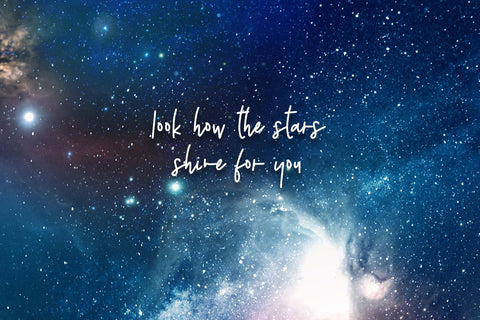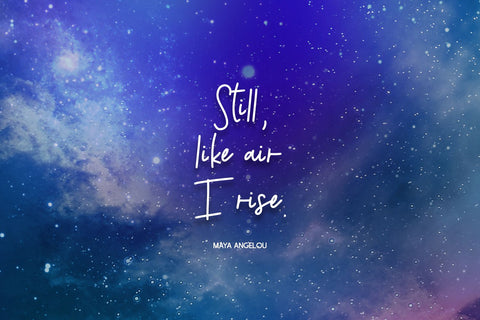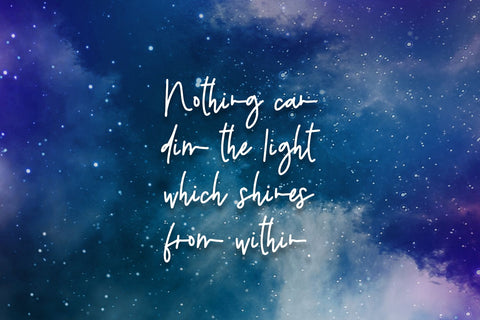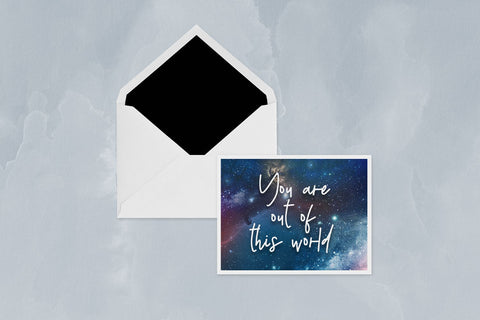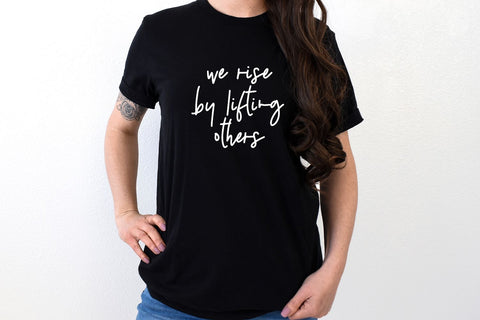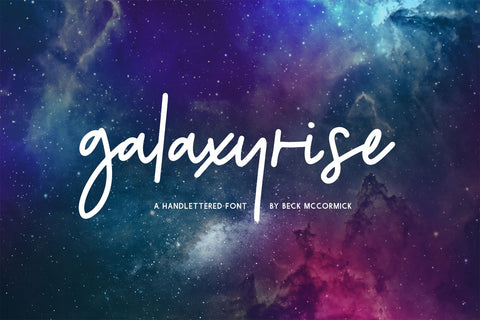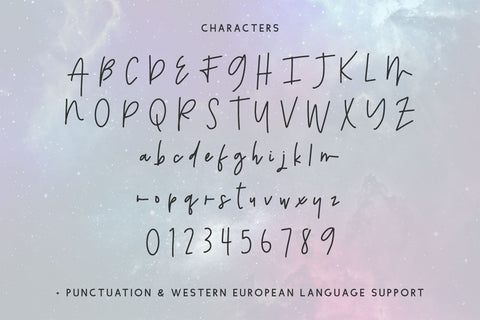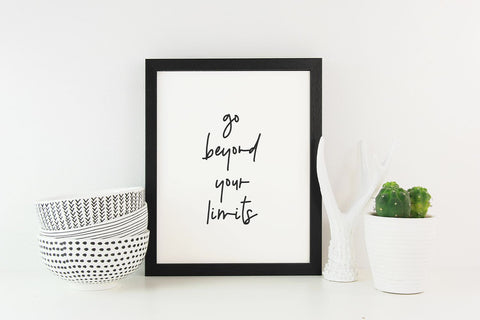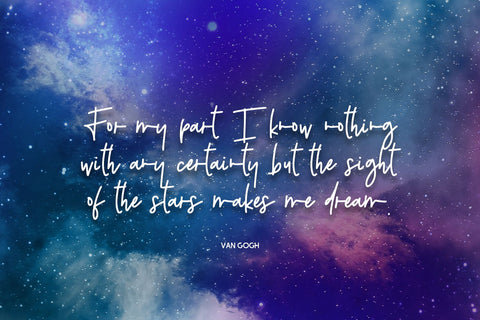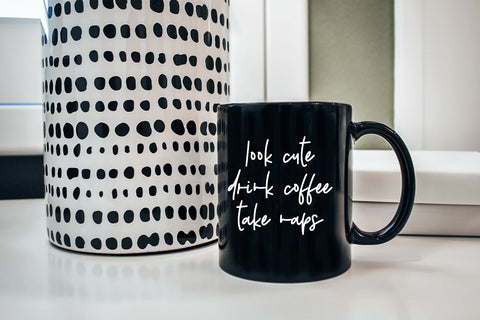
Galaxyrise Script Font
Introducing Galaxyrise, a monoline handwriting font.
Galaxyrise is best for:
- logos + branding
- website design + website accents, blog design
- clean print design, like magazines + flyers
- header elements that need handwritten touch
- quote graphics for social media
- full upper + lowercase characters
- numbers + punctuation
- Western European Language Support